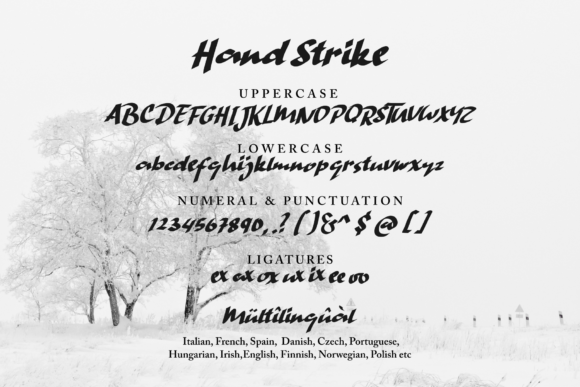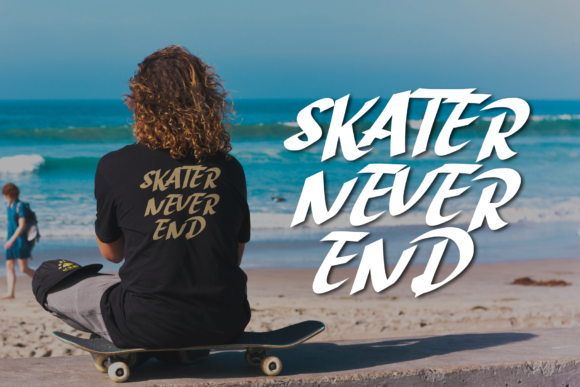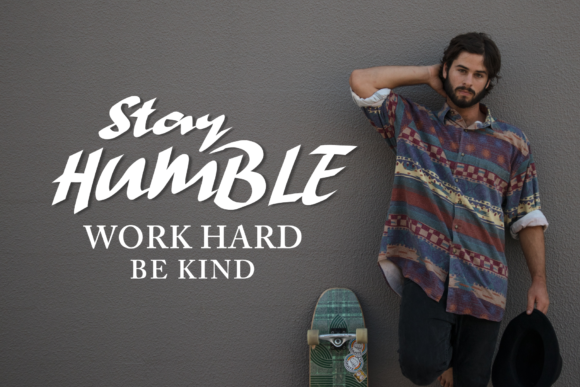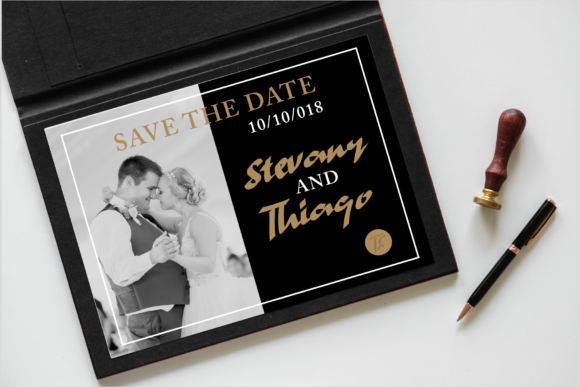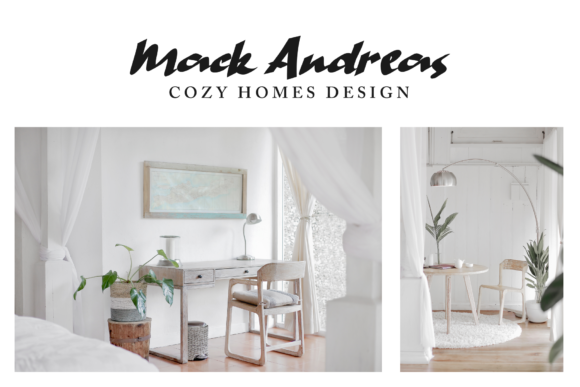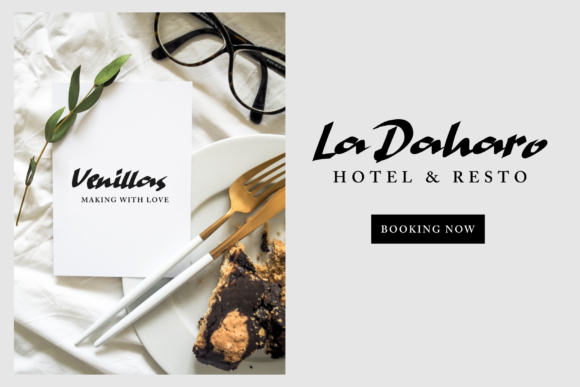
Introducing the Hand Strike Font: A Bold and Masculine Typeface for Striking Designs
Are you tired of using the same old fonts for your designs? Do you want to add a touch of personality and boldness to your creations? Look no further than the Hand Strike font, a handwritten typeface that’s sure to make your designs stand out from the crowd.
What is the Hand Strike Font?
The Hand Strike font is a unique and eye-catching typeface that’s perfect for designers who want to add a masculine and bold touch to their work. With its handwritten style, this font has a personal and organic feel that’s sure to capture the attention of your audience.
Key Features of the Hand Strike Font
- Masculine and bold characters: The Hand Strike font features strong and confident characters that are perfect for designs that need to make a statement.
- Handwritten style: With its handwritten style, this font has a personal and organic feel that’s sure to add a touch of personality to your designs.
- Perfect for designs that need to stand out: Whether you’re working on a logo, poster, or social media graphic, the Hand Strike font is sure to help your design stand out from the crowd.
Uses for the Hand Strike Font
The Hand Strike font is versatile and can be used for a variety of design projects, including:
- Logos and branding: The bold and masculine characters of the Hand Strike font make it perfect for logos and branding materials that need to make a statement.
- Posters and flyers: Whether you’re promoting a concert, sale, or event, the Hand Strike font is sure to grab attention and make your poster or flyer stand out.
- Social media graphics: Add a touch of personality to your social media graphics with the Hand Strike font, perfect for creating eye-catching posts and stories.
- Packaging design: The Hand Strike font can add a bold and masculine touch to packaging design, making your product stand out on store shelves.
Tips for Using the Hand Strike Font
To get the most out of the Hand Strike font, here are a few tips to keep in mind:
- Use it sparingly: While the Hand Strike font is bold and eye-catching, it can be overwhelming if used too much. Use it sparingly to add emphasis and create visual interest.
- Pair it with a neutral font: Pair the Hand Strike font with a neutral font to create contrast and add visual interest to your design.
- Experiment with different colors: The Hand Strike font looks great in a variety of colors, so don’t be afraid to experiment and find the perfect color to match your brand or design.
| Font Name | Hand Strike Font |
| Author | JavaPep |
The Hand Strike font is a bold and masculine typeface that’s perfect for designers who want to add a touch of personality and boldness to their work. With its handwritten style and strong characters, this font is sure to make your designs stand out from the crowd. Whether you’re working on a logo, poster, or social media graphic, the Hand Strike font is a great choice for any design project that needs to make a statement.